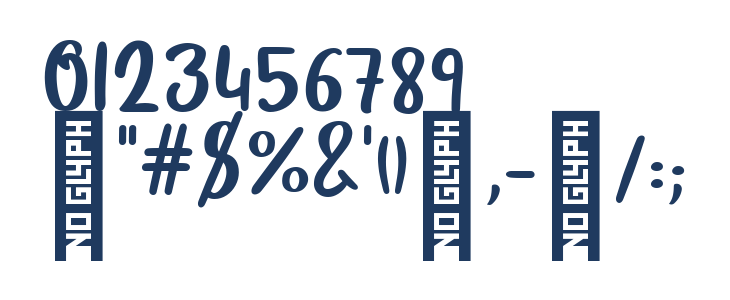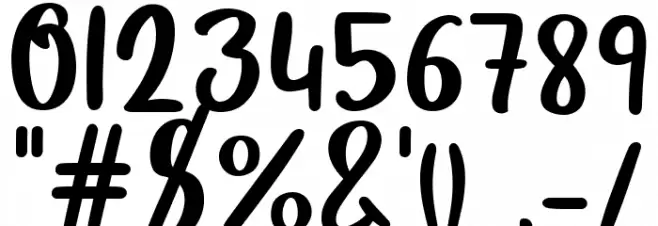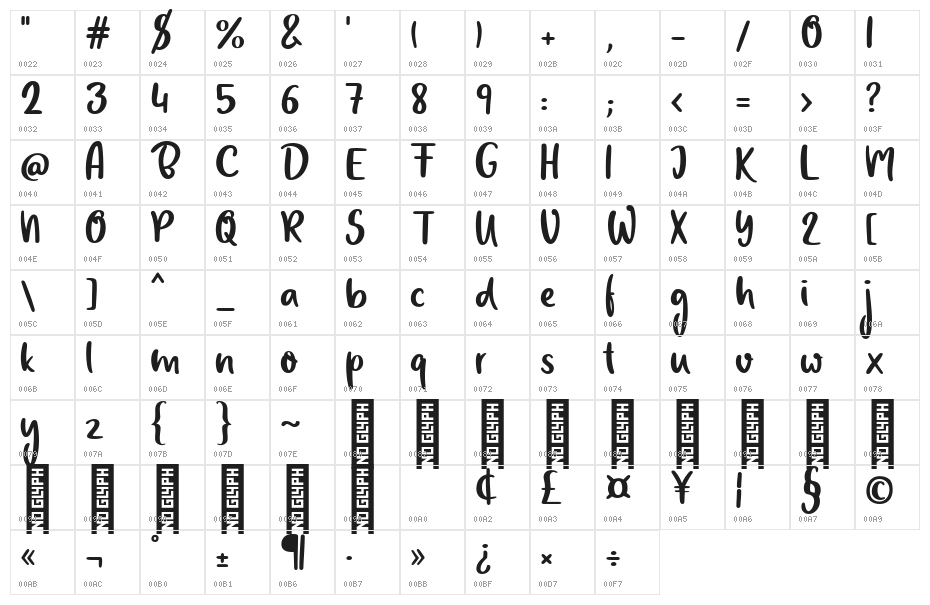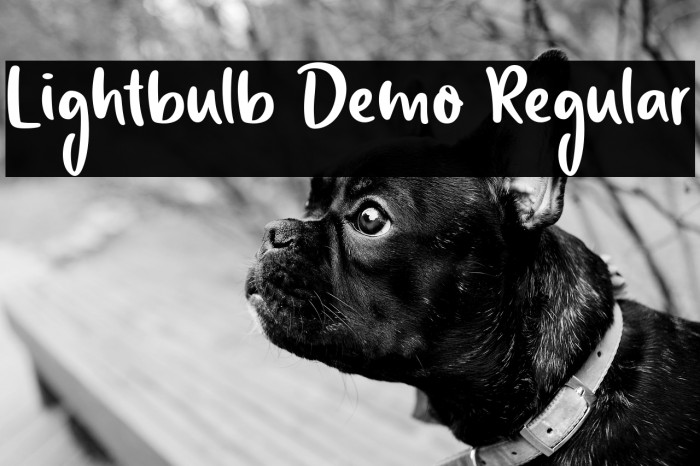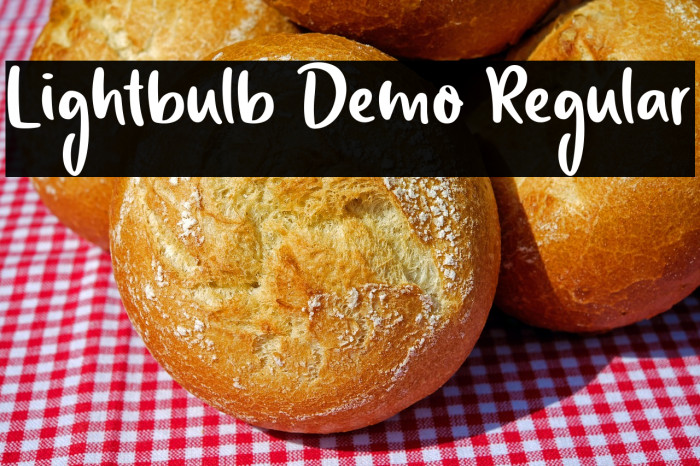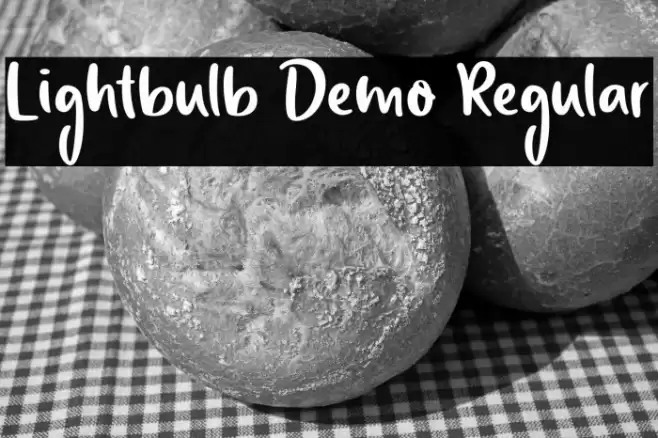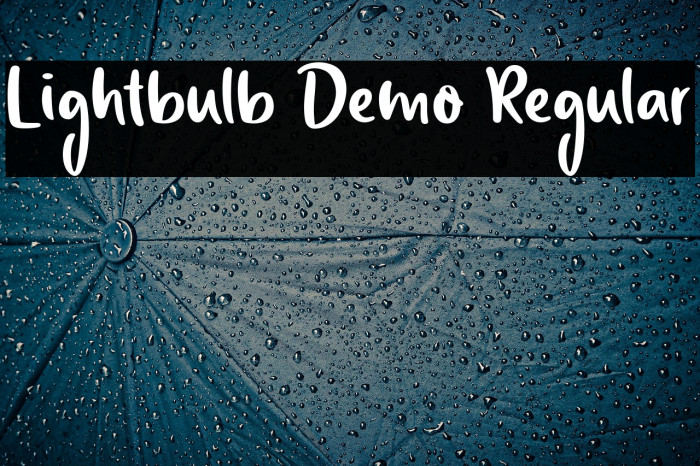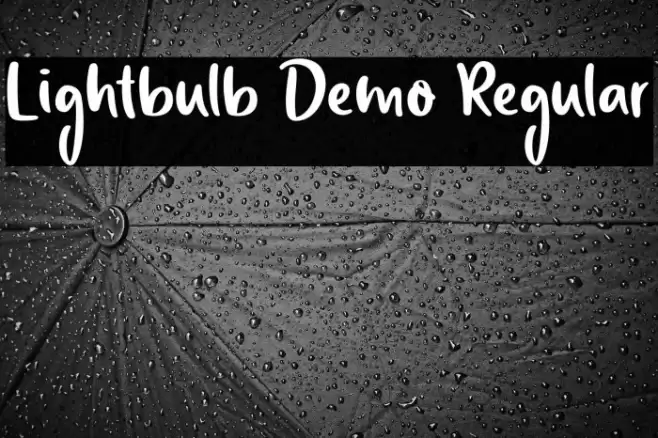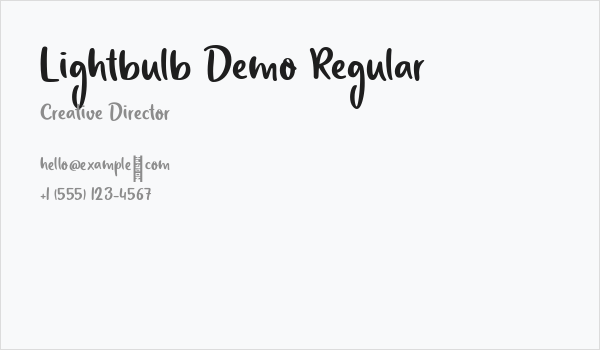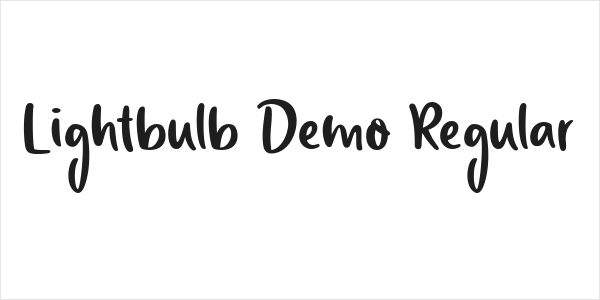
Lightbulb Demo Regular Font
Lightbulb Demo Regular Description
This font features a playful and energetic handwritten style, characterized by its smooth, flowing curves and slightly irregular letterforms. The uppercase and lowercase letters maintain a consistent rhythm, giving it a cohesive look. The numbers and special characters are designed to match the overall aesthetic, with a touch of whimsy that adds to its charm. The strokes are moderately thick, providing good legibility while retaining a casual, friendly appearance. This font is versatile, suitable for projects that require a personal touch or a creative flair.
Overall StyleCasual
Use CaseHeadlines, Logos, Invitations
Proposed ProjectsIdeal for greeting cards, invitations, children's books, and creative branding.